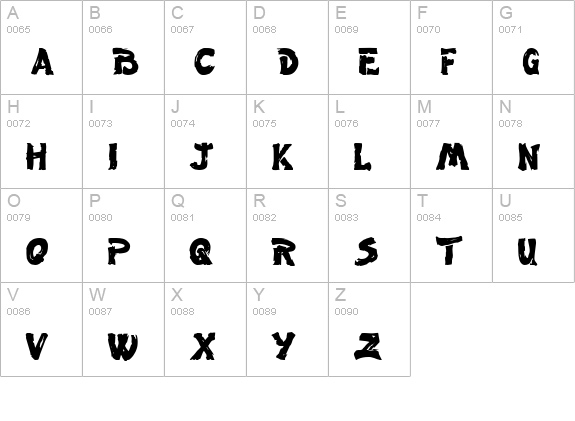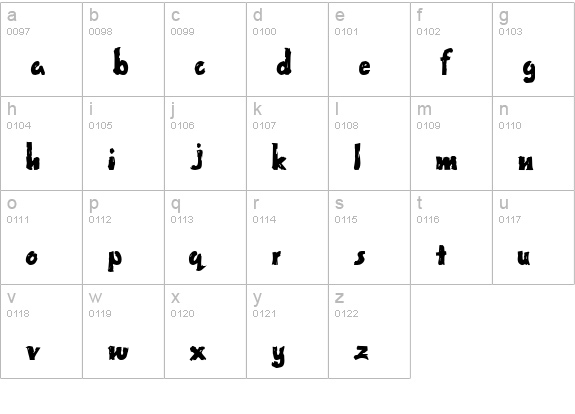
Getaway Font Details
Getaway font is a stunning display typeface that exudes a sense of adventure and boldness. Its sleek lines and unique curves make it perfect for adding a touch of excitement to any design project. Whether you're working on a poster, logo, or website, Getaway font will help your text stand out and make a lasting impression. The best part? Getaway font is completely free to download at FontsMarket.com. This means you can easily access this versatile font without any cost, making it a fantastic choice for both personal and commercial use. So why wait? Give your designs a fresh and dynamic look with Getaway font today!